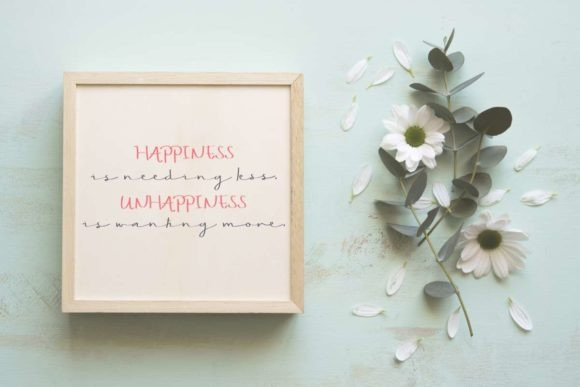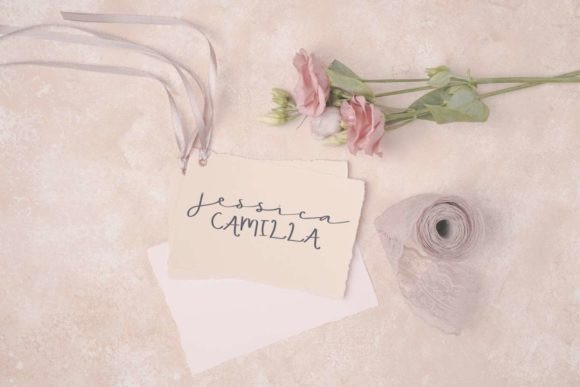
Shibuya Font
Shibuya Cute Font is a modern and awesome handwriting font with a natural style. This font is suitable for your current or classic design: Signature. Logo. Branding. Invitation. Blog Headline and many more.